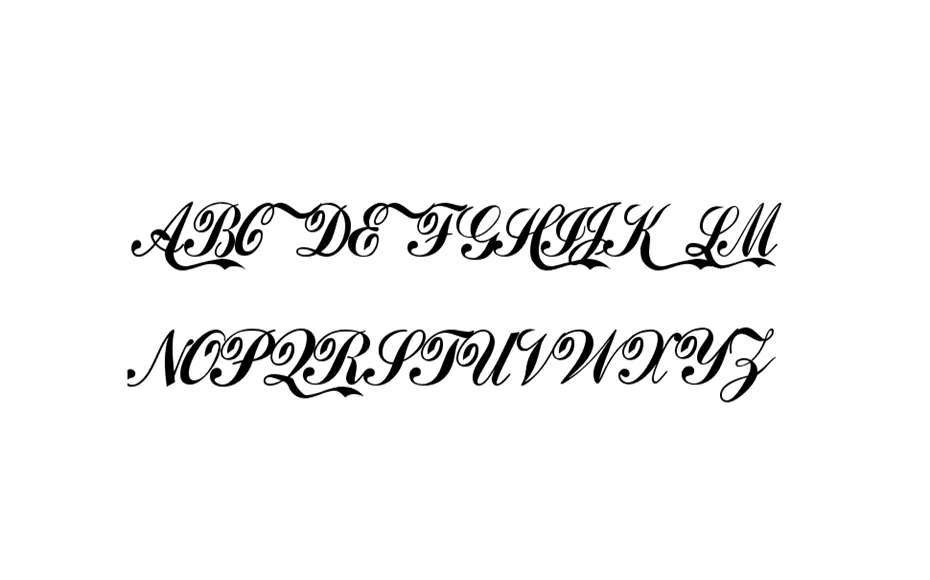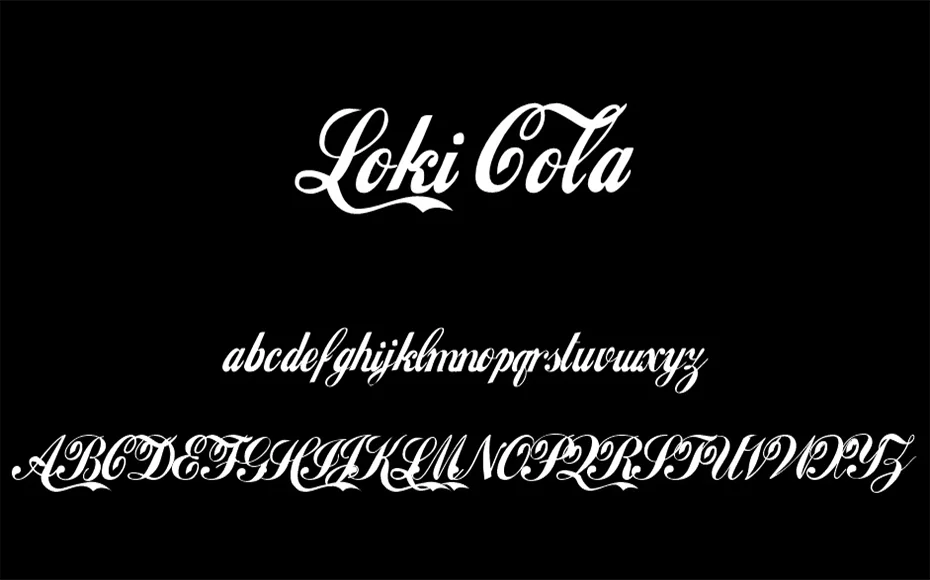
Loki Cola Font is a script various typeface that gives your work that instant handmade feel! That was inspired by stunning typographic posters with style and texture.
This stylish font is beautifully designed to make the design even more amazing. Therefore, when it comes to design, it gives designs a stunning & eye-catching look.
It’s a really inspiring design. If you belong to the design field, you will definitely find better designs. All letters are handmade with a designer cursive touch.
Just look at its texture, you will find the thickness that makes it the best choice for display tasks.
With this elegant font help, you can create sweet and cool designs for sure. For example, you can make posters, manga posters, product design, product packaging, flyers, brochures, labels, shopping bags, and other things as well.
This amazing font comes in a single regular variant that has more than 95 characters and 57 unique glyphs.